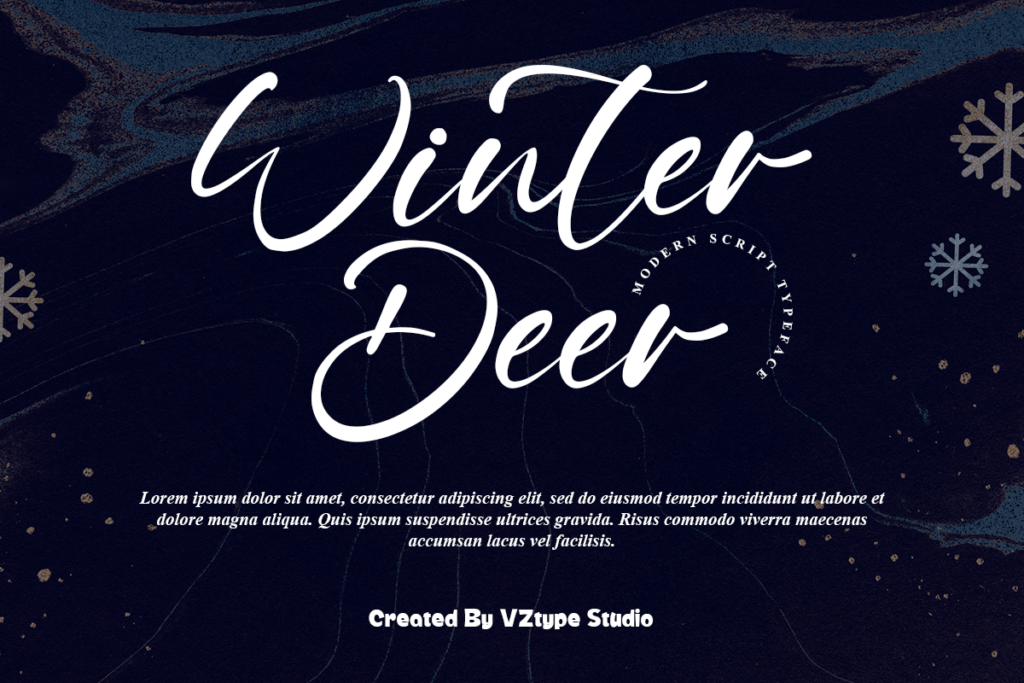
Winter Deer Script Font
Winter Deer Script Font. Set of multicolored bright letters for inscriptions and your design, very suitable as to make adorable invitation for wedding, birthday, special day and also perfect for your other projects branding.
Winter Deer Script Handwritten Font